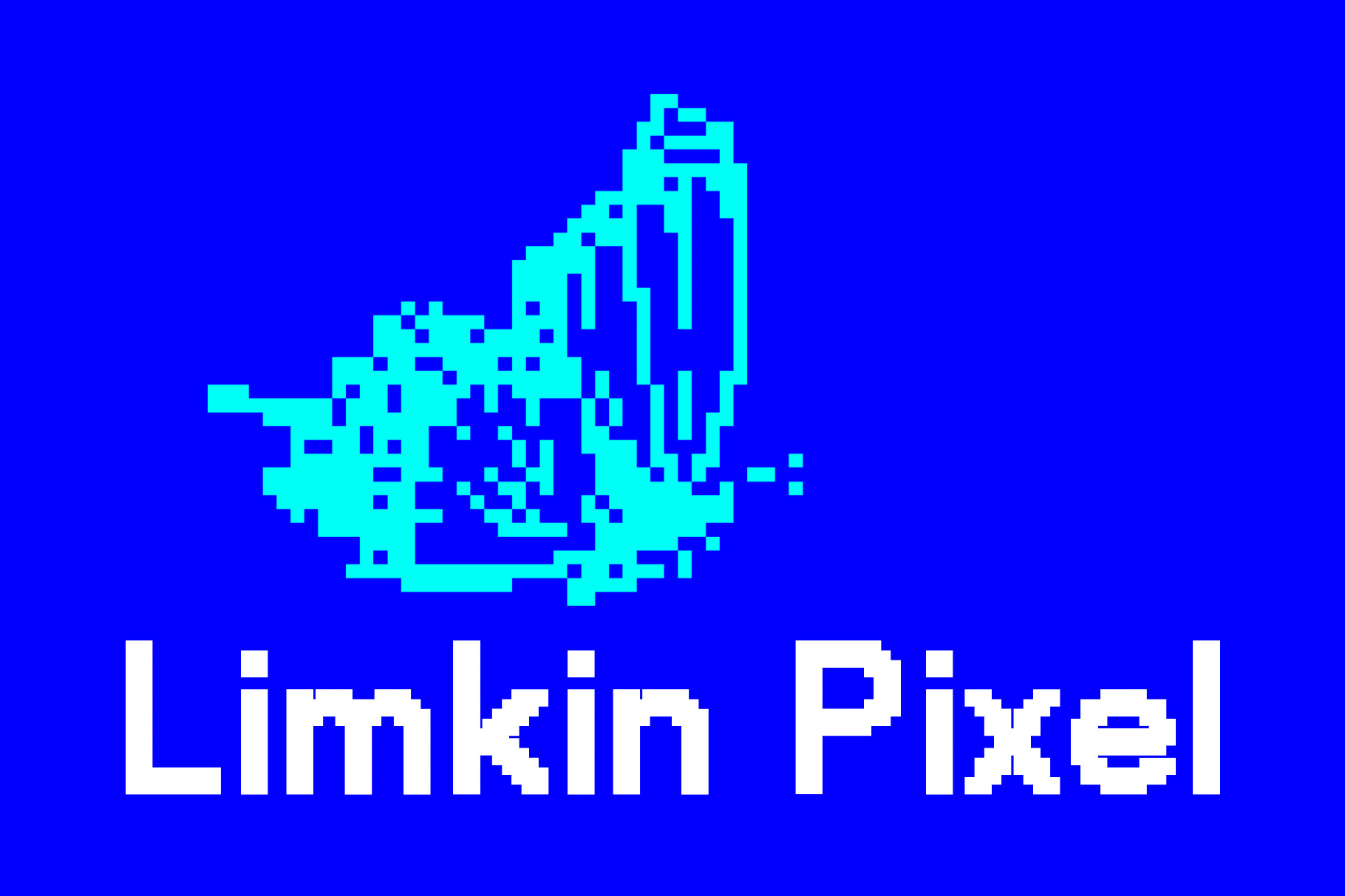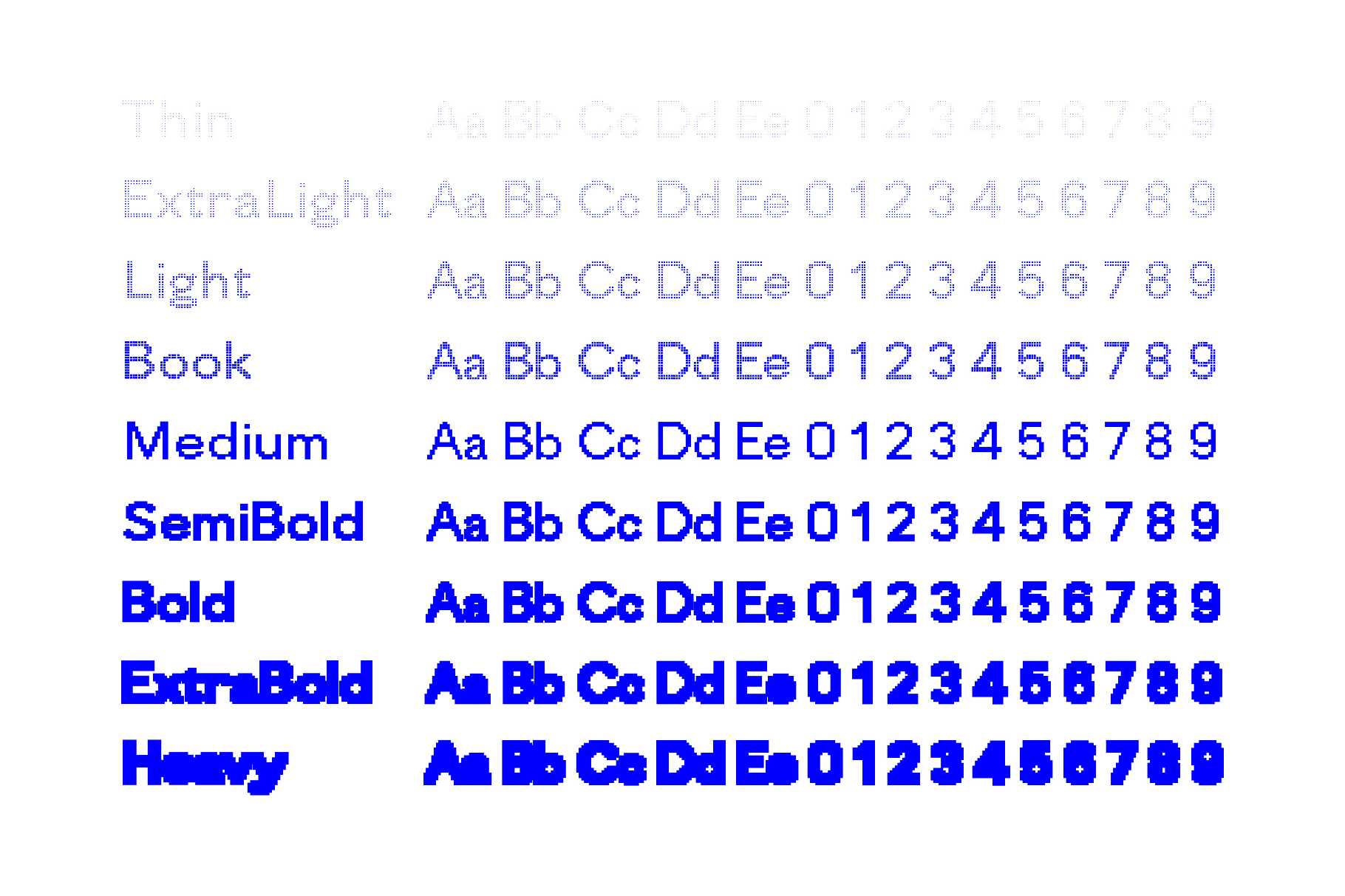
Limkin Pixel Font
Limkin Pixel is a variable sans that snaps every letter to a tight grid. The shapes with squared-off details maintain a simple, smooth rhythm, with compact curves and clear diagonals. A wide weight range (from Thin through Heavy) makes it easy to build hierarchy without leaving the type family.
Use Limkin Pixel for app and web interfaces, dashboards, product pages, and brand systems. It also fits editorial layouts, tech presentations, event posters, streaming overlays and panels, and social graphics.
- Multiple weights: Bold, Book, ExtraBold, ExtraLight, Heavy, Light, Medium, SemiBold, Thin.
- Uppercase and lowercase letters, numbers, punctuation, and basic symbols.